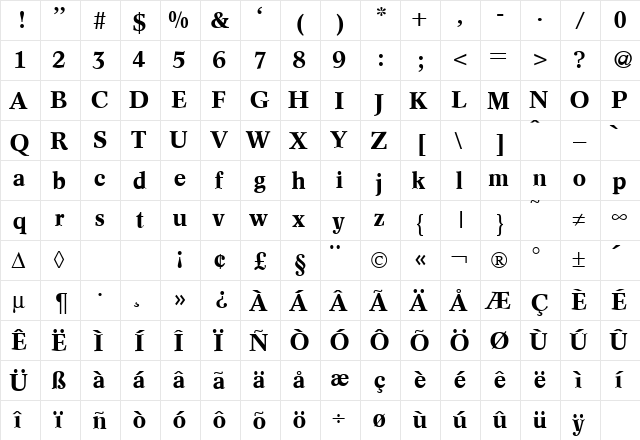
Concept Bold
Design Context for Concept Typeface
Concept takes a measured approach to typography — its balanced proportions and neutral character make it a reliable workhorse for both digital and print work. The heavy weight commands attention and anchors typographic hierarchies.